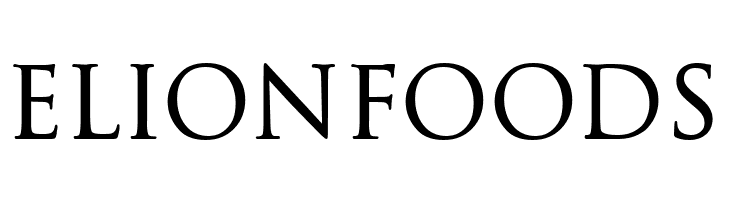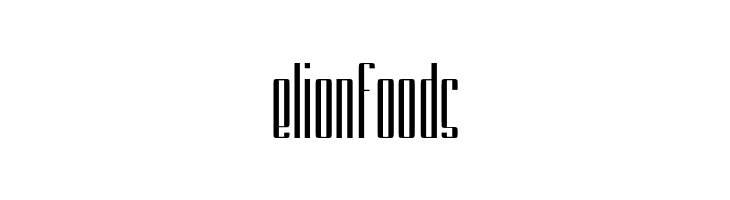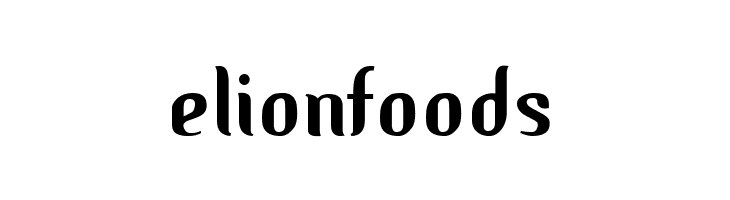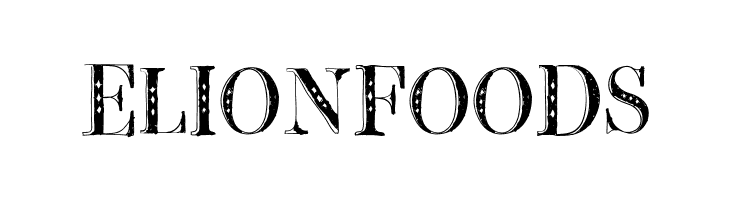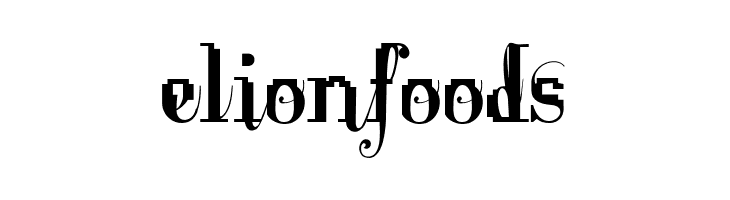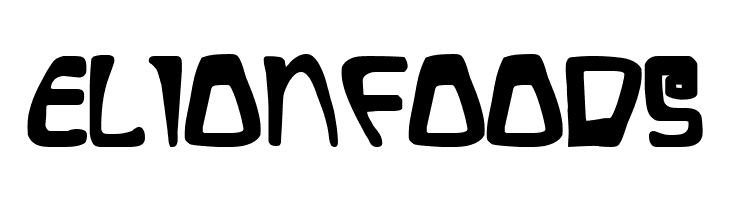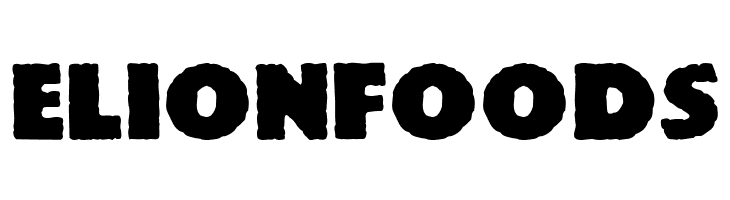
A bold, geometric font with a structured, architectural style.
A bold, slightly condensed font with a modern vintage style.
A bold, decorative font with vintage flair and intricate patterns.
A wide-stroke, textured font with a vintage, hand-drawn feel.
A bold, playful font with an organic, hand-drawn style.
A bold, rounded font with a playful and friendly appearance.
A bold, textured font with a rugged, hand-crafted appearance.